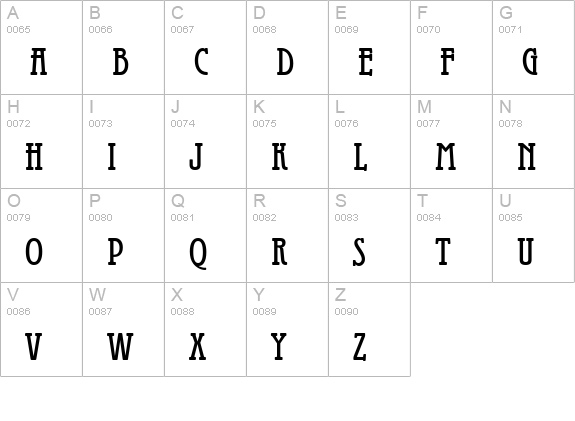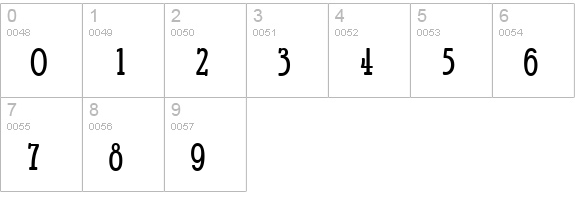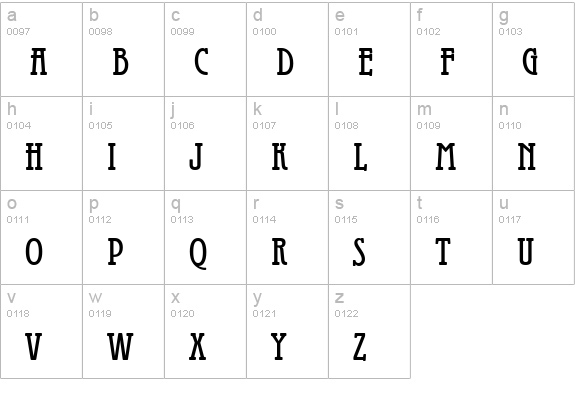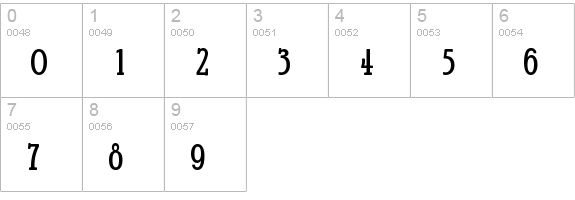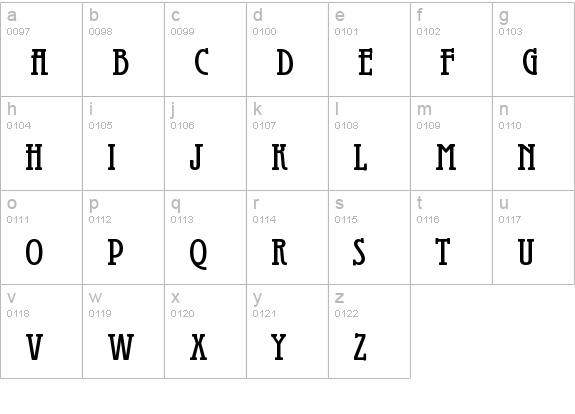
Gandalf-Regular Font Details
Gandalf-Regular is the standard, neutral variant in the Gandalf typeface family \xE2\x80\x94 well suited to general body text, paragraphs, and standard typographic work.
Gandalf-Regular font is a versatile and elegant typeface that exudes a sense of sophistication and charm. With its classic and timeless design, this font is perfect for a wide range of projects, from elegant invitations to stylish branding. This font features clean lines and a balanced weight that make it easy to read and appealing to the eye. The gentle curves and subtle details give Gandalf-Regular font a touch of uniqueness and character, making it stand out from other typefaces. Best of all, Gandalf-Regular font is available for free download at FontsMarket.com. This means you can easily access this beautiful font and use it in your projects without any cost. Whether you're a designer looking for a new font to add to your collection or a business owner in need of a stylish typeface for your branding, Gandalf-Regular font is a great choice that won't break the bank. Download it today and elevate your designs with this stunning and versatile font.